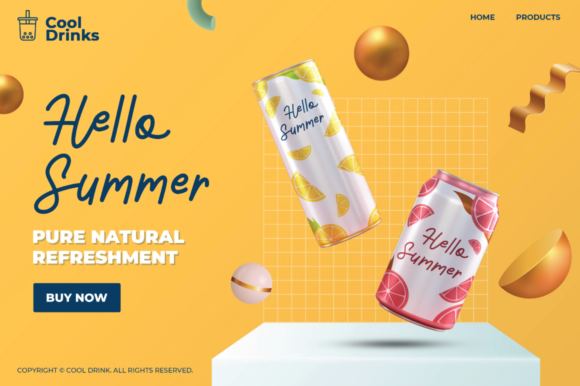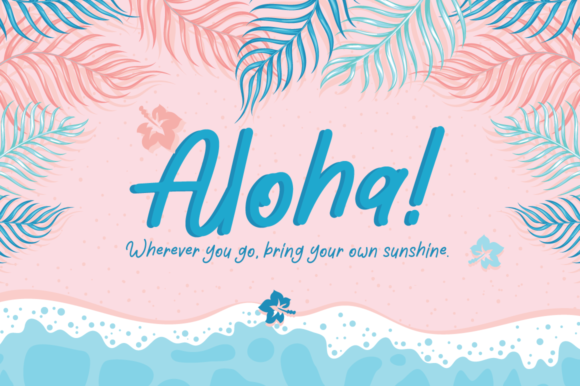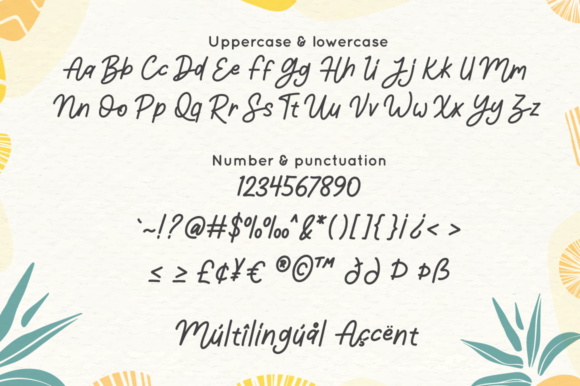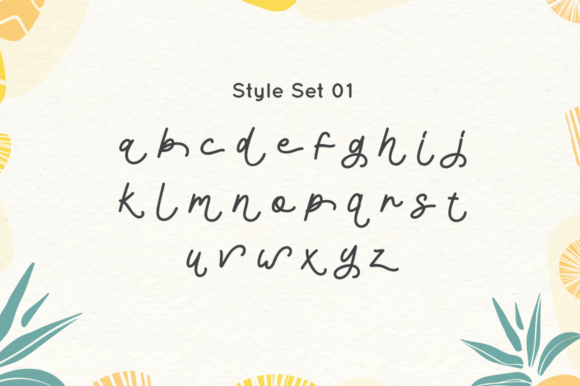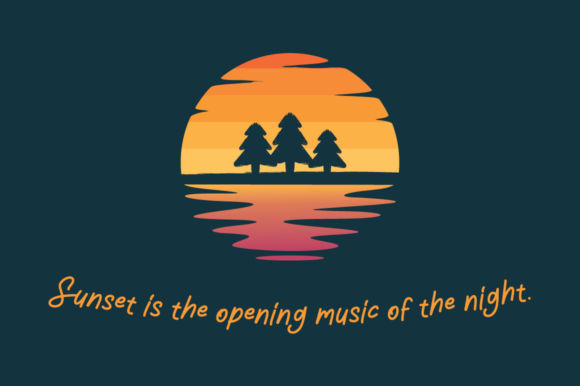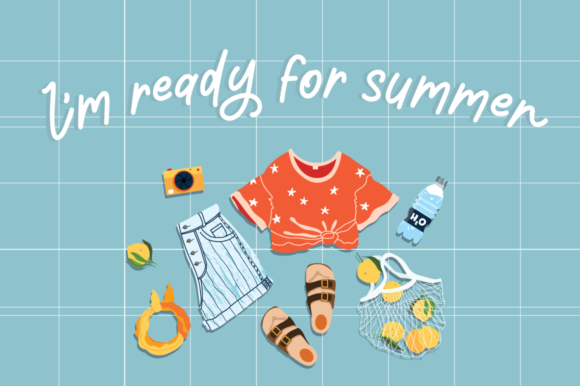
Olivia Bloom Font
About Olivia Bloom Font
Olivia Bloom is a lovely and delicate script font that exudes elegance and class. This font was particularly crafted for those who need a beautiful and refreshing look to their designs.